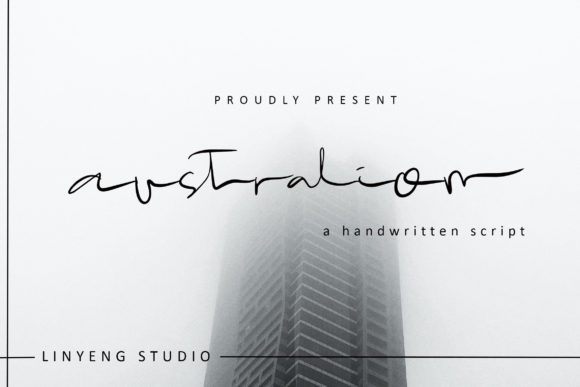
The Elusive Font: A Designer’s Quest for the Perfect Script
I still remember the frustration of working on a project, hours spent searching for the perfect font, only to come up empty-handed. My client wanted a delicate, whimsical touch, but everything I found was either too formal or too over-the-top. That’s when I stumbled upon Australion Font, a relaxed and chic script font that has since become a staple in my design toolkit.
A First Impression: What I Love About Australion Font
Australion Font is more than just a pretty face – it’s a versatile and user-friendly font that makes it easy to add a touch of elegance to any design. Here are just a few things I love about it:
- ✨ Beautifully crafted characters that dance along the baseline, giving it a playful and carefree feel.
- 🌈 Wide range of applications, from wedding invitations to branding and packaging.
The Honest Review: Not Perfect, But Close
No font is perfect, and Australion Font is no exception. Here are a few quirks to keep in mind:
- 🤔 Limited multilingual support – while it covers the basics, it’s not the best choice for projects requiring a wide range of languages.
- ⚠️ Some swashes may not work well in all contexts – a little experimentation is required to get the desired effect.
The Designer Inspiration Behind Australion Font
Rumor has it that Australion Font was inspired by long walks on the beach and a passion for elegant, handwritten scripts. While we can’t confirm the exact story, it’s clear that the designer poured their heart and soul into crafting a truly unique font.
| Font Name | Australion Font |
| Author | Linyeng Studio |
| Is Australion Font suitable for body text? | While it’s possible to use Australion Font for body text, it’s primarily designed for headlines and titles. Its elegant, cursive feel works best when used sparingly. |
| Is Australion Font available in different weights or styles? | Currently, Australion Font comes in a single weight, but its versatility and range of swashes make it easy to adapt to different design needs. |